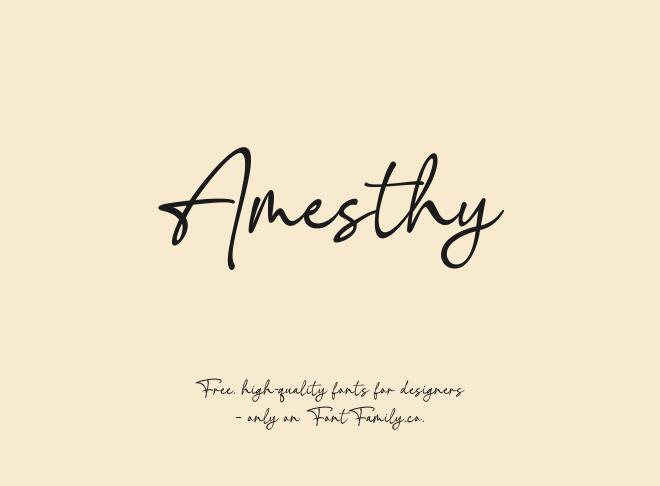
Amesthy Font
Amesthy Font is a modern and playful script font with a handwritten touch. Designed by Studio Typo, it was released in 2021 and is free for personal use. The font embodies a casual yet stylish look, making it perfect for a wide range of design applications, including logos, invitations, social media posts, and more. Its unique character set and flowing design set it apart from other handwritten fonts, providing a distinctive style that adds personality to any project. The Amesthy Font is an excellent choice for designers seeking a versatile and contemporary script font that blends sophistication with a touch of whimsy. Its accessibility and ease-of-use make it a go-to resource for personal and creative projects alike.